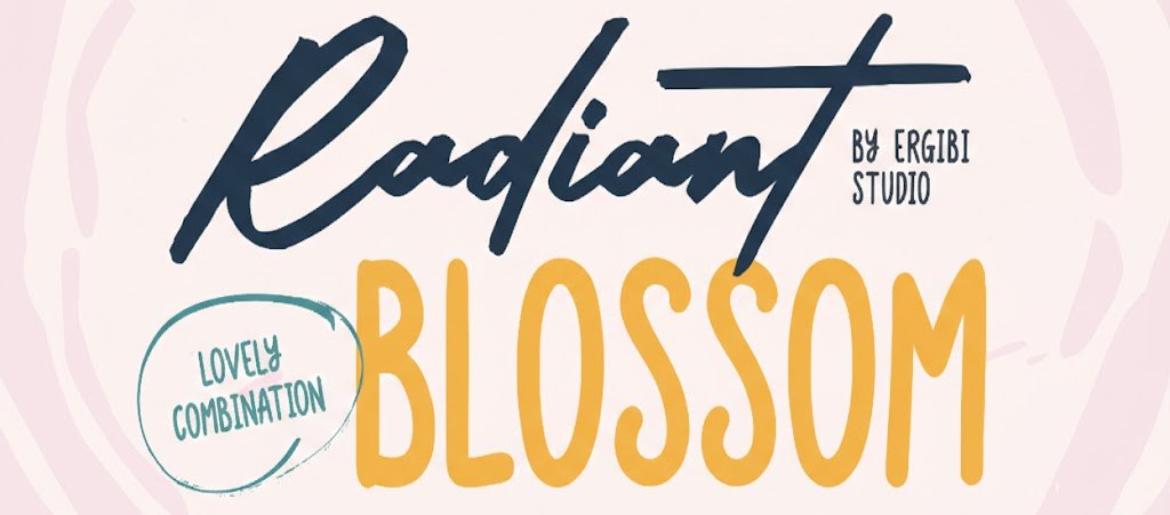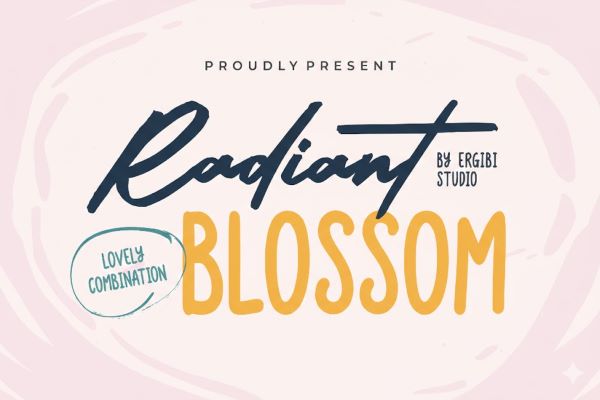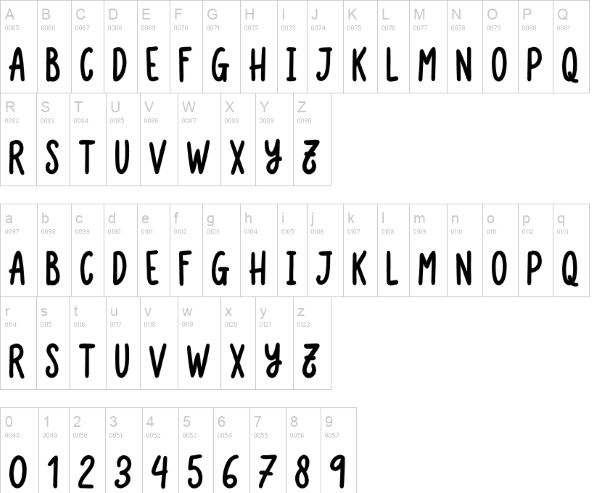
Blossom Sans Font
Blossom Sans Font is a clean and friendly sans-serif typeface designed with soft curves and balanced proportions. Its modern yet approachable style makes it ideal for branding, websites, posters, UI design, and everyday graphic projects. Blossom Sans delivers clarity and warmth, helping designs feel fresh, readable, and visually pleasing across both digital and print media.
➤ Font Name: Blossom Sans
➤ Designer: Riyadh Rahman
➤ Style: Handwritten